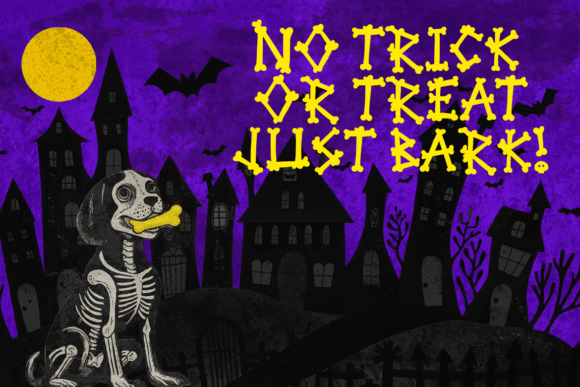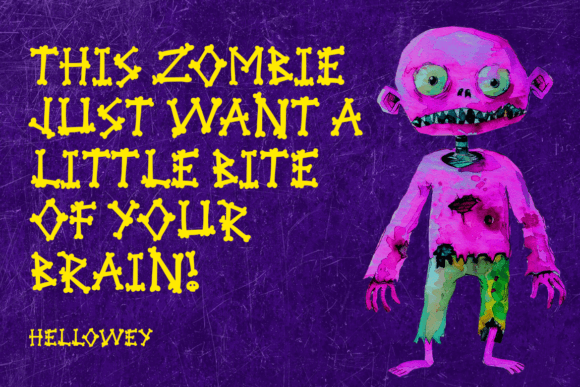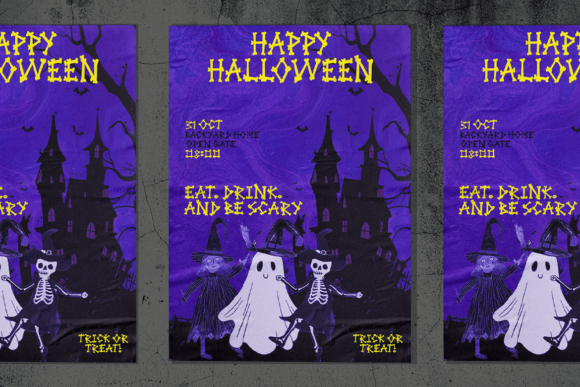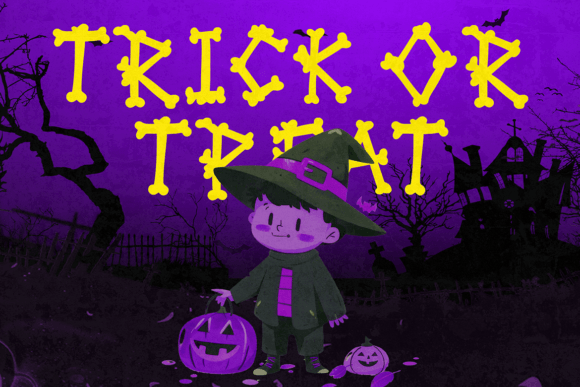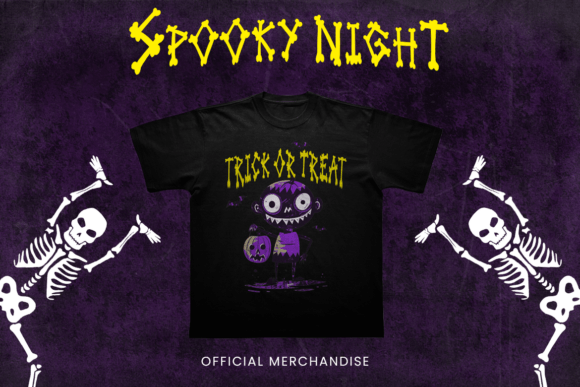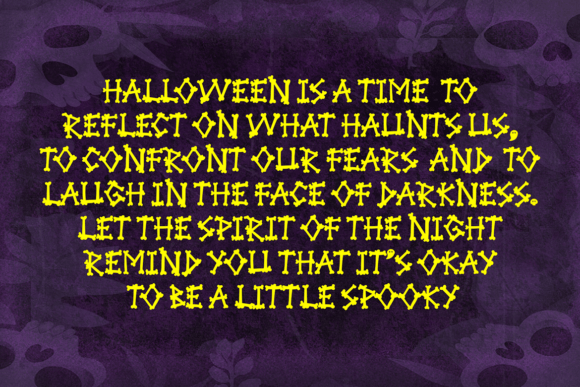
Introduction to Hellowey Font Font
Fonts play a crucial role in design, and the Hellowey Font font is a typeface that brings both character and versatility to any project. Whether you’re working on a branding project, a website, or a print design, the Hellowey Font font offers a unique style that can elevate your work.
Introducing Hellowey, the spooktacular typeface perfect for your Halloween designs.
Inspired by the intricate shapes of bones, this font combines an eerie elegance with playful charm Its jagged edges and organic curves evoke a sense of the macabre, making it ideal for haunted themes, spooky events, and whimsical Halloween decorations.
Key Features of Hellowey Font Font
Why Choose Hellowey Font Font?
The Hellowey Font font is more than just a typeface – it’s a design tool that helps you communicate your message with style and clarity. Its unique character set and versatile design make it suitable for a wide range of applications, from elegant invitations to bold headlines.
With its carefully crafted letterforms and balanced proportions, the Hellowey Font font ensures readability and visual appeal across all mediums.
What makes Hellowey Font font special?
The Hellowey Font font stands out with its unique design, exceptional readability, and versatility across various design applications.